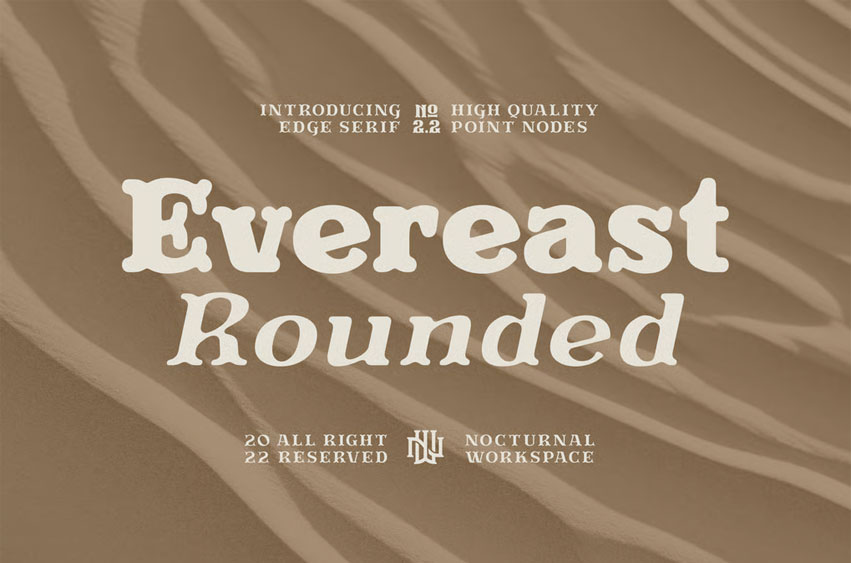
Evereast Font
Evereast Font is a suitable typeface for various purposes like logotype, signage, label, poster, dropcap, titles, letterhead, book cover, etc.
• 8 fonts stylist Outline, Bold, Regular, Light, Italic
• Features: Ligatures Contextual, Salt.
• Includes a range of multilingual characters.